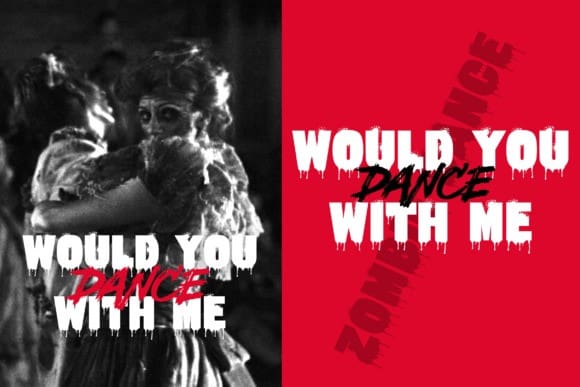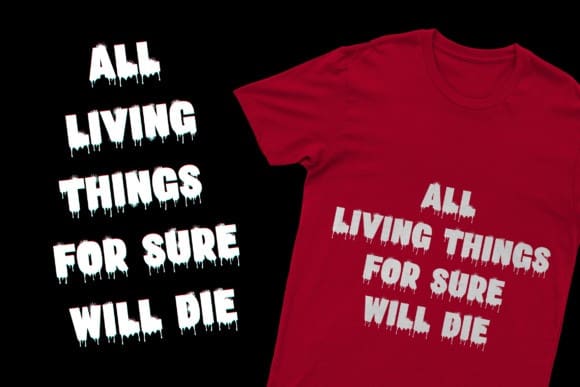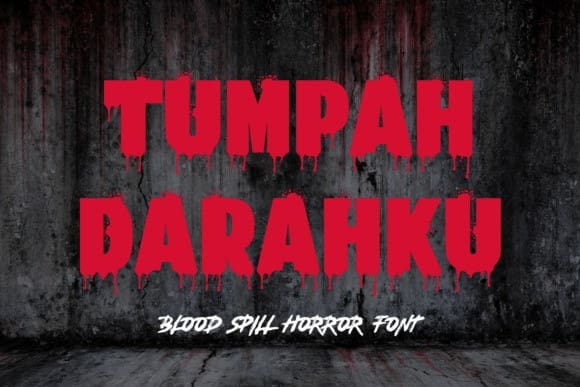
Tumpah Darahku Font
Tumpah Darahku Font is a spooky and cool display font. It works great for Halloween designs, horror-themed projects, or anything that needs a creepy touch.